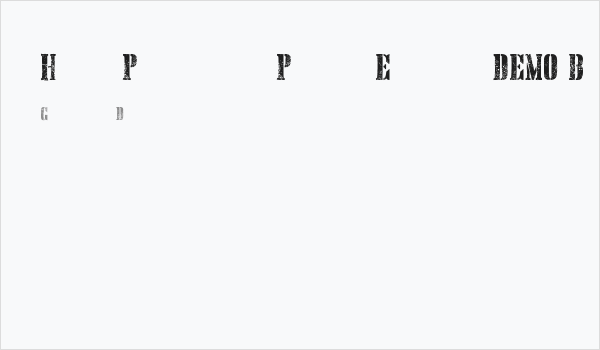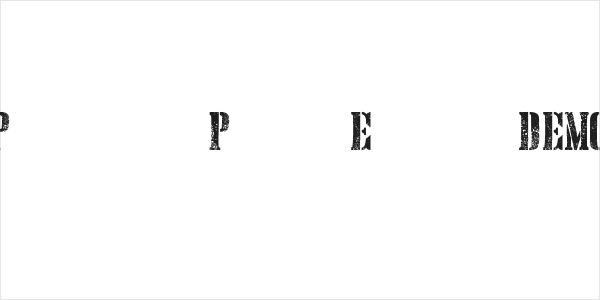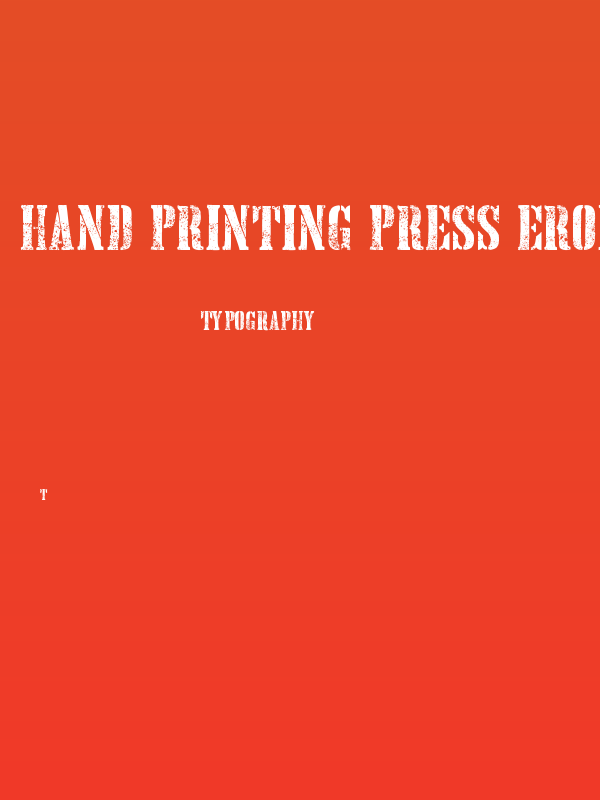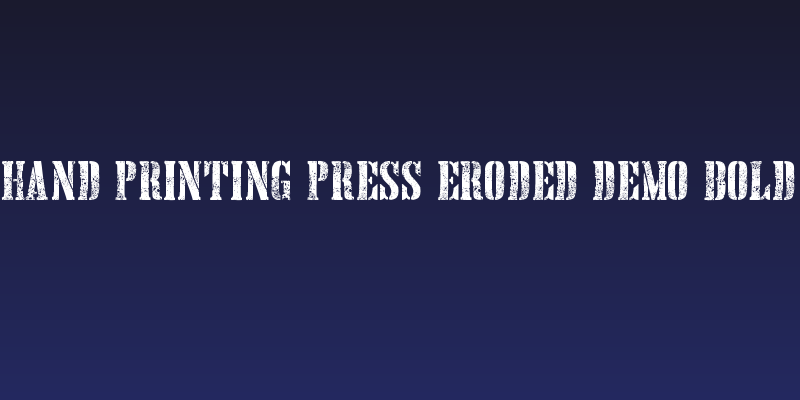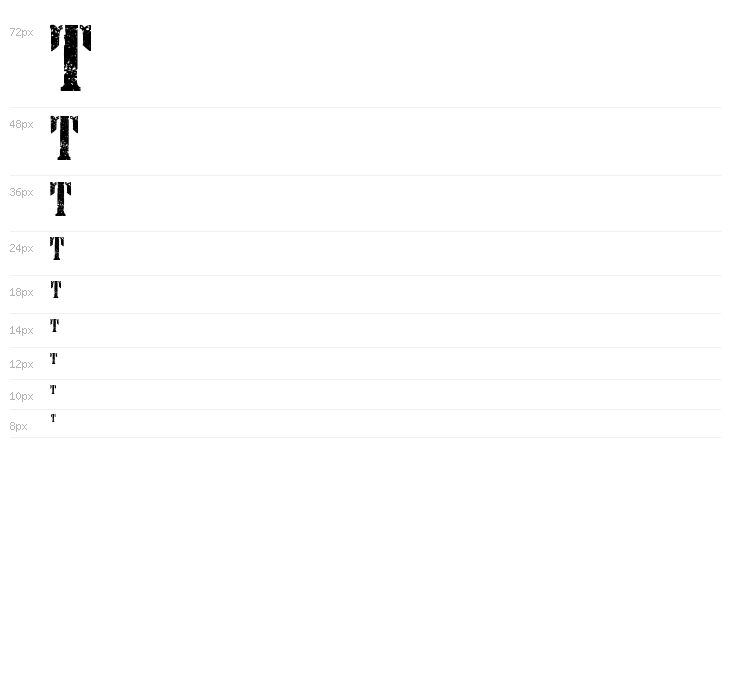
Hand Printing Press Eroded DEMO Bold Font
Hand Printing Press Eroded DEMO Bold Description
This font features a bold, distressed style reminiscent of vintage hand-printed press techniques. The eroded texture gives it a rugged, worn appearance, adding character and a sense of history to the text. The uppercase letters are prominent and impactful, making it ideal for designs that require a strong visual presence. The irregularities in the texture create a dynamic and engaging look, perfect for projects that aim to convey a sense of authenticity and nostalgia. Its boldness ensures readability while the unique texture adds an artistic flair.
| Proposed Projects | Ideal for posters, album covers, vintage-themed designs, and branding that requires a rustic or historical feel. |